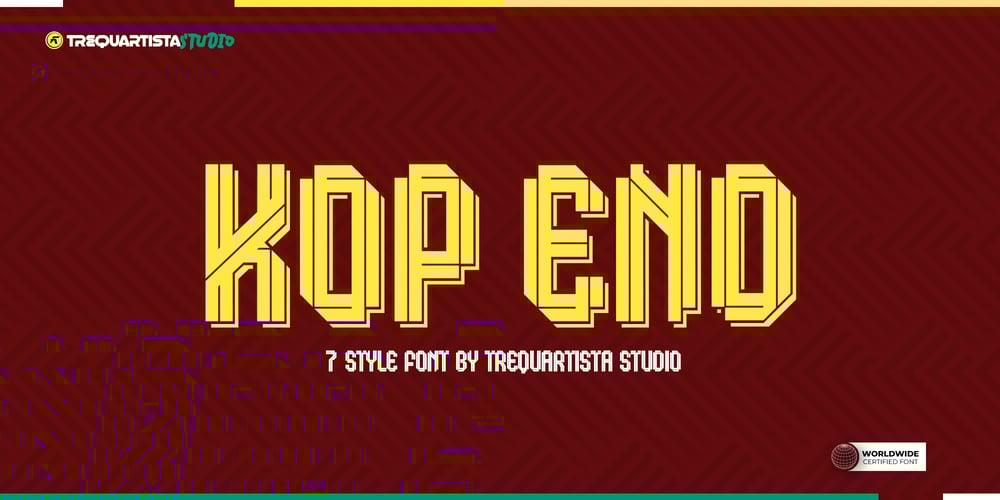
Kop End
Kop End font
Kop End Font Family was designed by Muhammad Afif Ersya and published by Trequartista Studio. Kop End contains 7 styles and family package options. Klops is a fearless athletic font family with 7 creative styles + 1 free font for added flexibility and variation. It’s perfect for sports logos, branding, posters, apparel design with it’s bold and confident appearance. The uppercase characters comes with different renders to add authenticity and a more natural worn look.